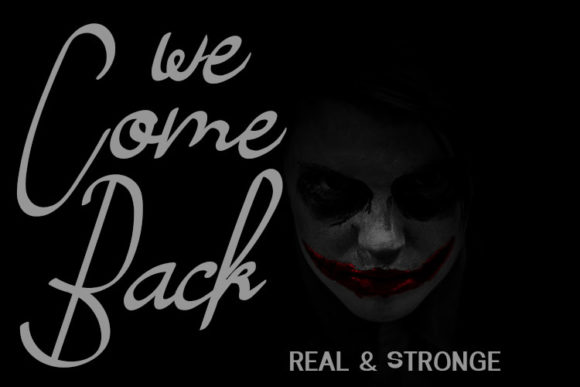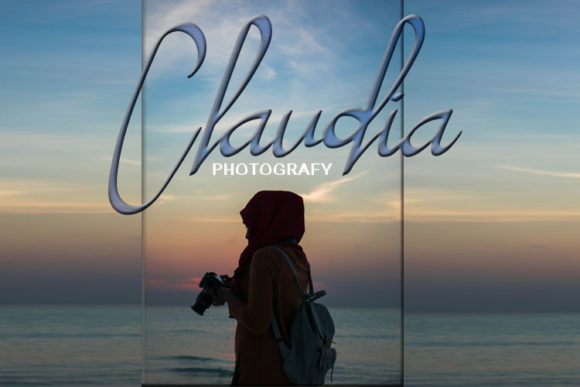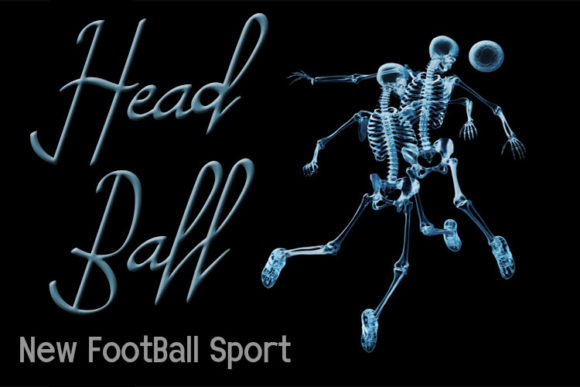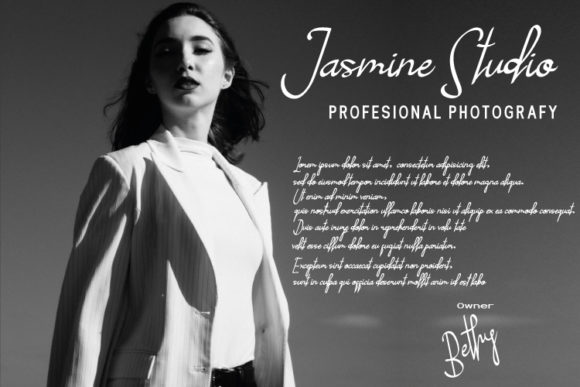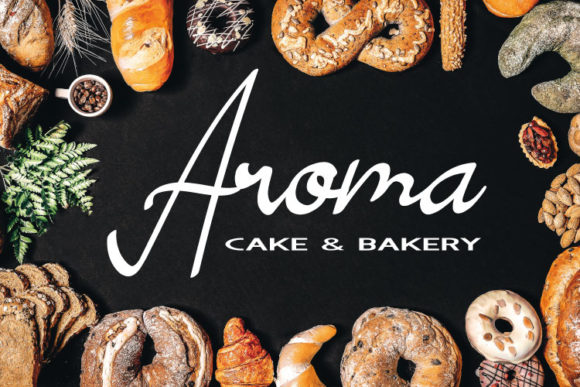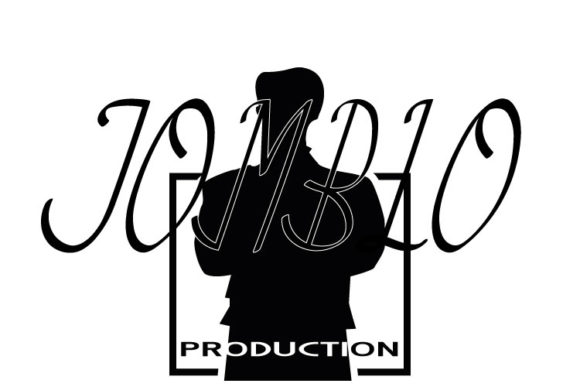
Introducing Ellando Font: The Ultimate Modern Calligraphy for Fashion and Editorial Designs
In the world of typography, a good font can make all the difference in the success of a design project. For designers and crafters looking for a modern, stylish, and readable calligraphy font, Ellando is an excellent choice. This sleek and sophisticated font is perfect for fashion branding, editorial designs, and any project that requires a touch of elegance and refinement.
What Makes Ellando Font Stand Out?
Ellando is a modern calligraphy font that boasts smooth curves, making it a stunning addition to any design project. Its thin and stylish lines give it a contemporary look that’s sure to impress. Whether you’re working on a fashion brand’s logo, an editorial spread, or a craft project, Ellando is a versatile font that can adapt to various design needs.
Key Features of Ellando Font
- Readable: Despite its thin lines, Ellando is remarkably readable, making it perfect for body text and headlines.
- Thin and Stylish: The font’s sleek lines give it a modern and sophisticated look that’s ideal for fashion and editorial designs.
- Smooth Curves: Ellando’s smooth curves add a touch of elegance and refinement to any design project.
- Versatile: This font can be used for a wide range of design projects, from fashion branding to editorial spreads, and even craft projects.
Why Choose Ellando Font for Your Design Projects?
There are many reasons why designers and crafters should consider adding Ellando to their font collection. Here are a few:
- Elegance and Sophistication: Ellando adds a touch of elegance and sophistication to any design project, making it perfect for high-end fashion brands and editorial designs.
- Readability: The font’s readability makes it an excellent choice for body text, ensuring that your message is conveyed clearly and effectively.
- Flexibility: Ellando can be used for a wide range of design projects, from digital designs to print materials.
- Unique Style: The font’s unique style sets it apart from other calligraphy fonts, making it an excellent choice for designers looking to create a distinctive look.
How to Use Ellando Font in Your Design Projects
Using Ellando in your design projects is easy. Here are a few tips to get you started:
- Fashion Branding: Use Ellando to create stunning logos, business cards, and packaging for fashion brands.
- Editorial Designs: Add Ellando to your editorial spreads to create visually appealing headlines and body text.
- Craft Projects: Use Ellando to add a touch of elegance and sophistication to your craft projects, such as handmade cards and invitations.
- Digital Designs: Ellando can be used for digital designs, such as website headers, social media graphics, and email newsletters.
In conclusion, Ellando is a modern calligraphy font that’s perfect for designers and crafters looking for a stylish, readable, and versatile font. Its smooth curves, thin lines, and elegant look make it an excellent choice for fashion branding, editorial designs, and craft projects. With its flexibility and unique style, Ellando is sure to become a staple in your font collection. So why wait? Add Ellando to your design arsenal today and take your projects to the next level!